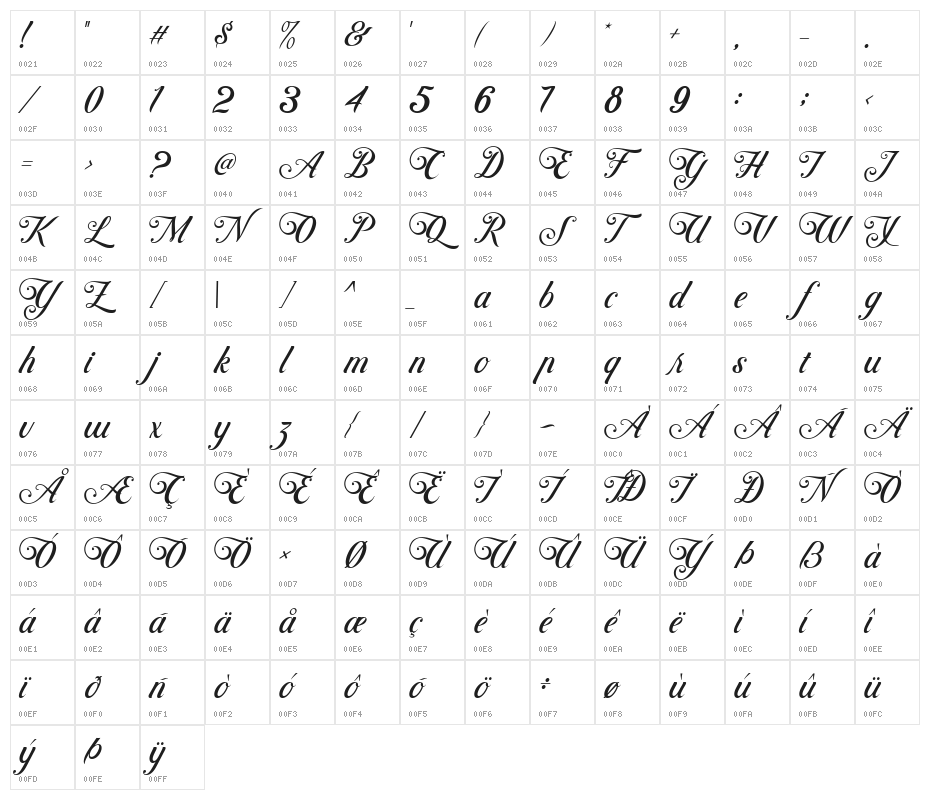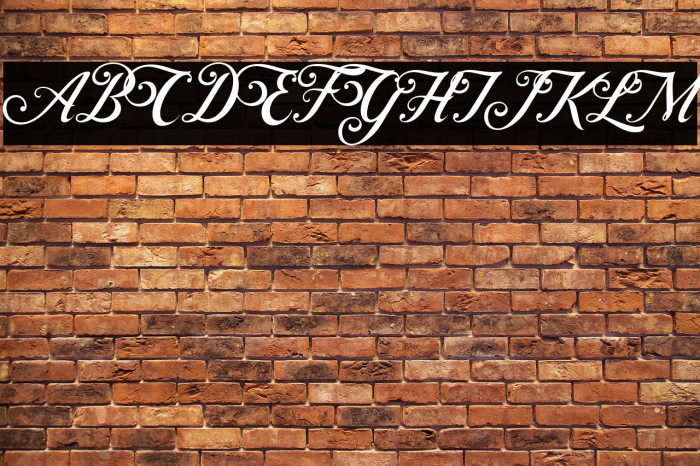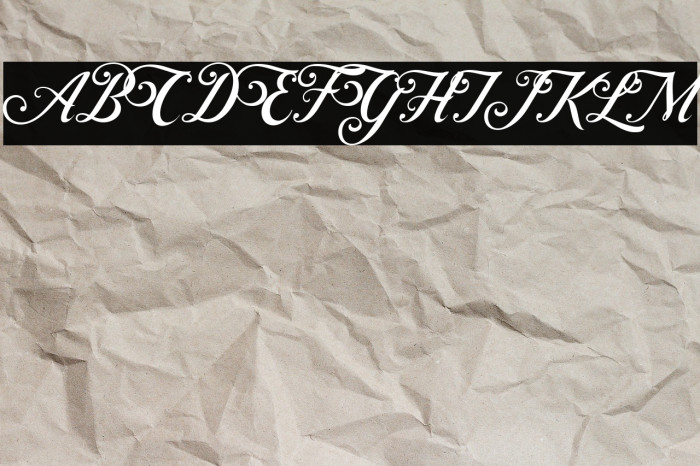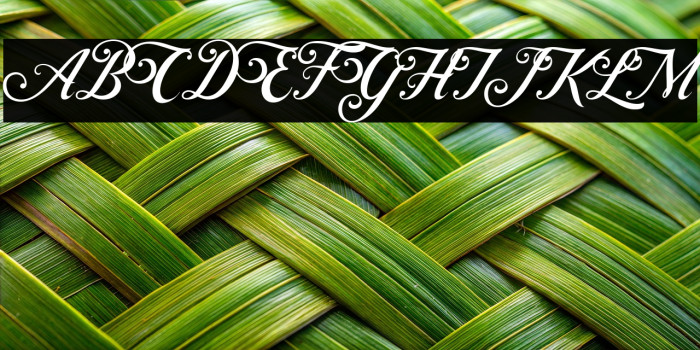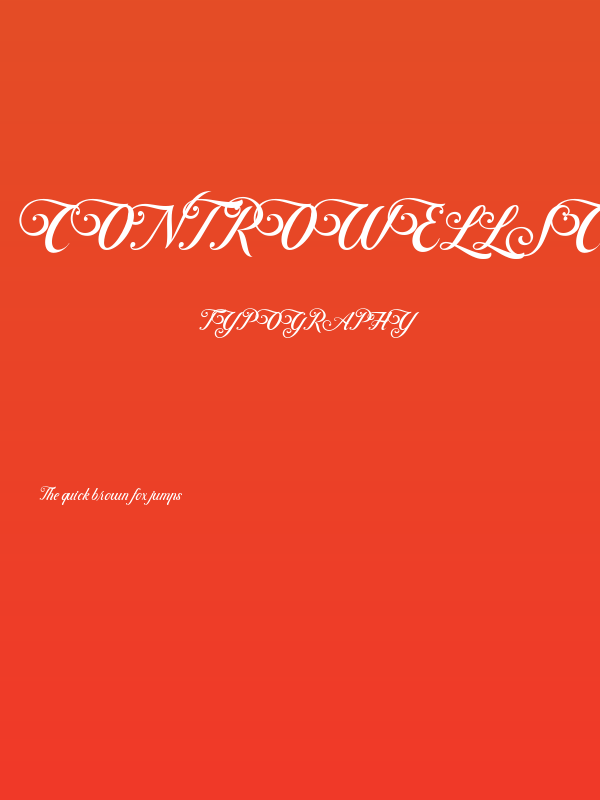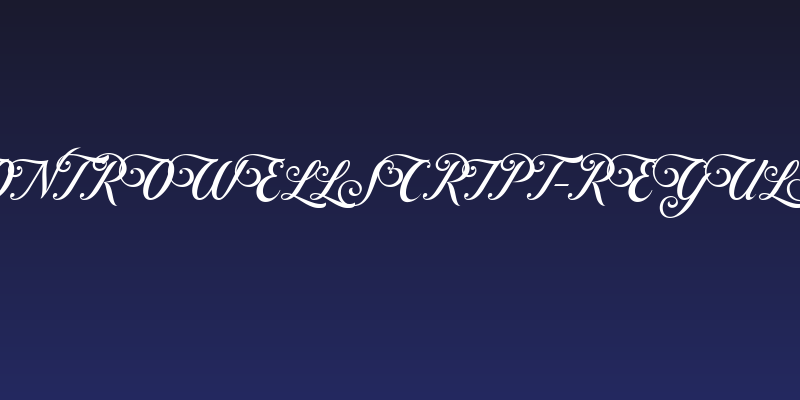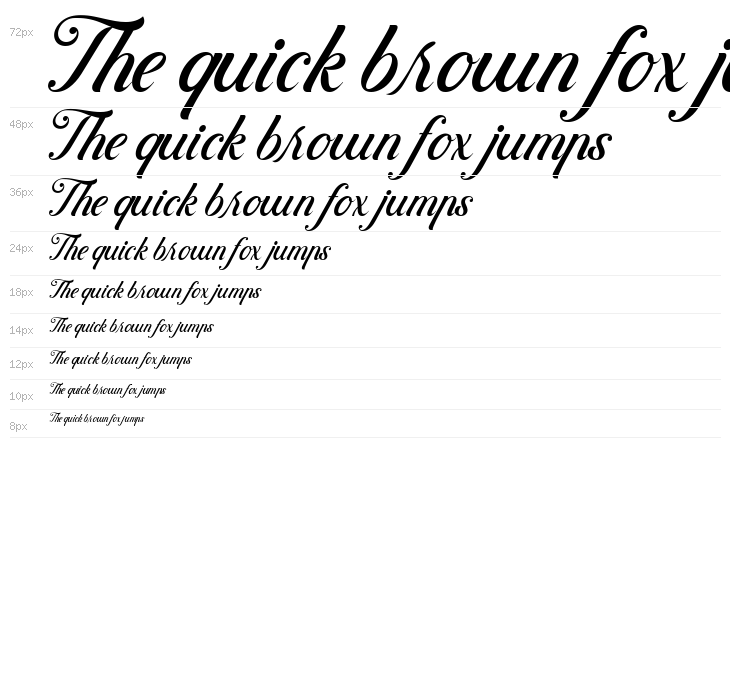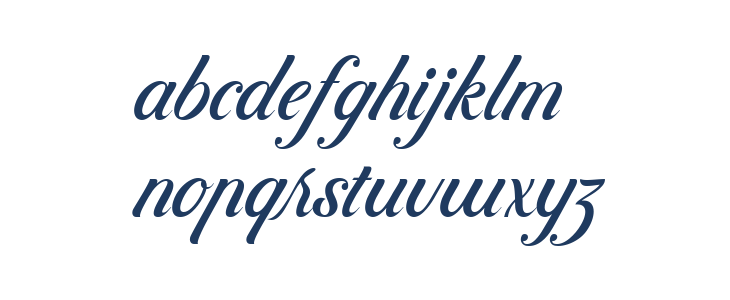
ControwellScript-Regular Font
ControwellScript-Regular Description
This elegant script font features a flowing, cursive style with intricate swirls and flourishes. The uppercase letters are particularly ornate, with loops and curves that add a sense of sophistication and grace. The lowercase letters maintain a consistent style, offering a smooth and connected appearance that enhances readability. Numbers and special characters are designed to match the overall aesthetic, ensuring a cohesive look across all text elements. This font exudes a sense of luxury and refinement, making it ideal for formal invitations, branding, and decorative purposes.
| Use Case | Logos, Invitations, Decorative text |
| Proposed Projects | Ideal for wedding invitations, luxury branding, greeting cards, and decorative signage. |